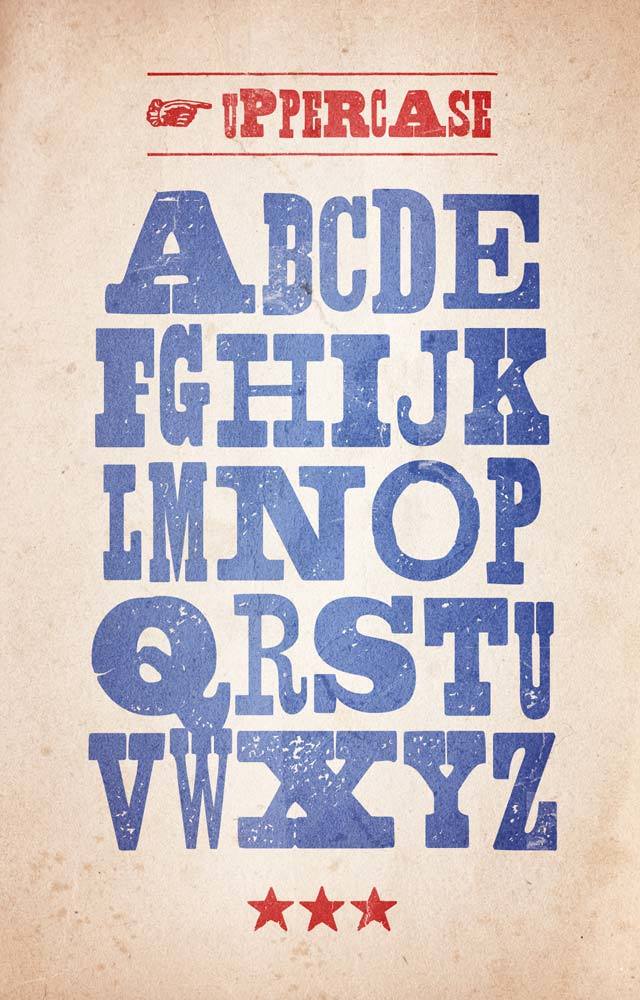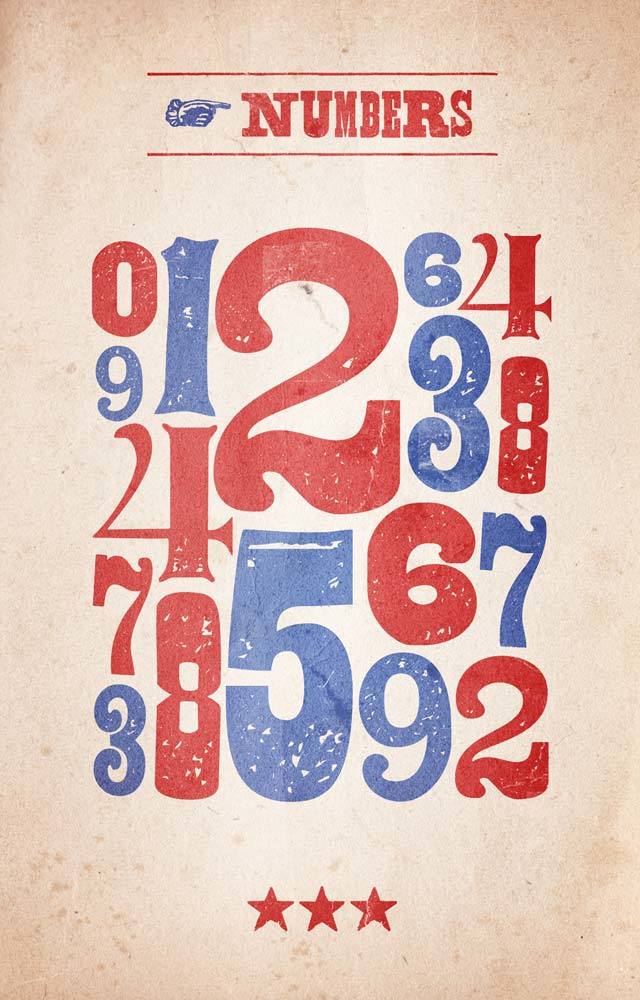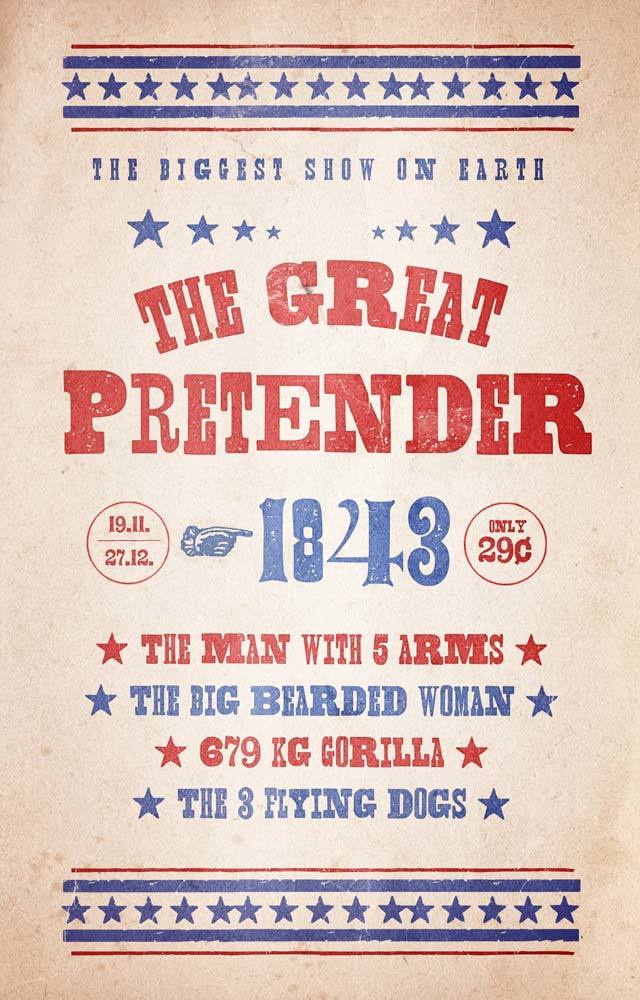
Shelton Slab
Shelton Slab Ds
Pick it out of the drawer.
Shelton Slab is a Typeface with an eroded, printed look. Every letter seems to be picked up from a different slab serif alphabet, this variety creates powerful, eyecatching words.
Printed wood type letters: Slab.
The whole look and the idea of mixed up letters is coming from the wood type era where each letter has been carved out of wood and the alphabets where stored in drawers or big ones even in shelves. Today in the digital age we have much more options and need less space for the storage of typefaces – but the handmade and crafted look has its own quality which is difficult to achieve with digital products – But we gave our best: Each letter has an alternate counterpart to avoid the typical font-repitition-effect: So you can just pick the alternate option and try out how it looks best.
Letters are beautiful and Shelton Slab celebrates each one like a star coming together for a grunge party.